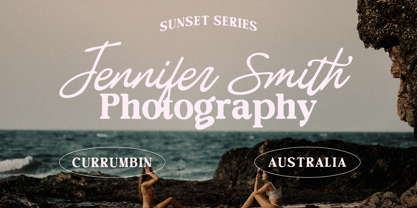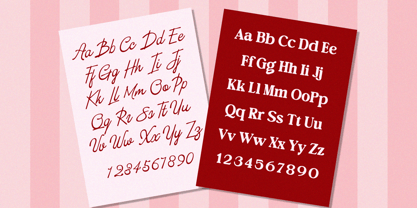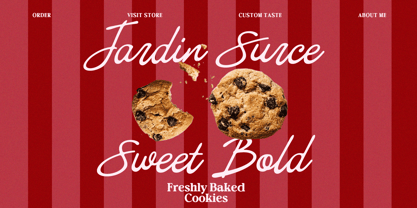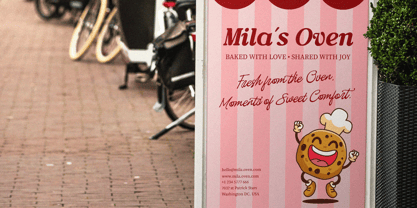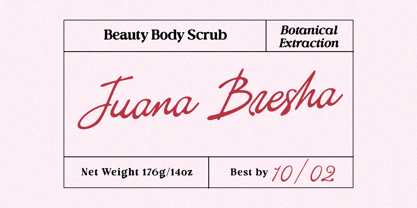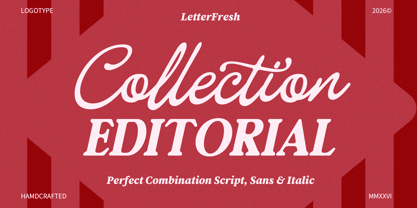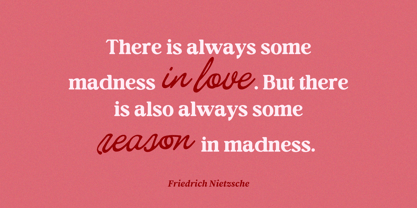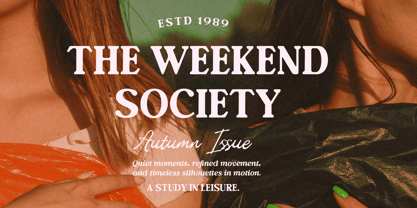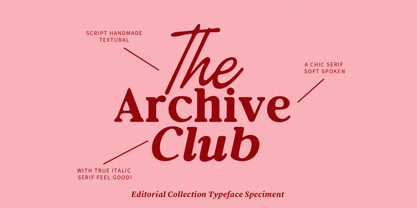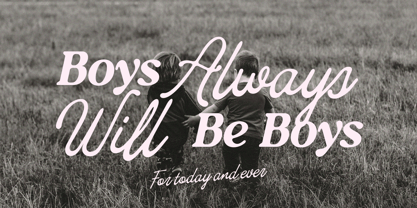
Editorial Collection Script
by Letterfreshstudio
The Editorial Collection Script Font Family was designed by Rizki Andika and published by Letterfreshstudio. Editorial Collection Script contains 3 styles and family package options.
Editorial Collection Duo a sweet and smooth font duo! With its chunky, rounded sans and a flowing, handwritten-style script, this playful pair brings just the right mix of bold and friendly. Perfect for product labels, greeting cards, social media posts, branding projects, logo designs, packaging, quotes, and more. I hope you enjoy these fonts; feel free to leave a comment if you have any thoughts or feedback. Thank you for purchasing, and have fun!